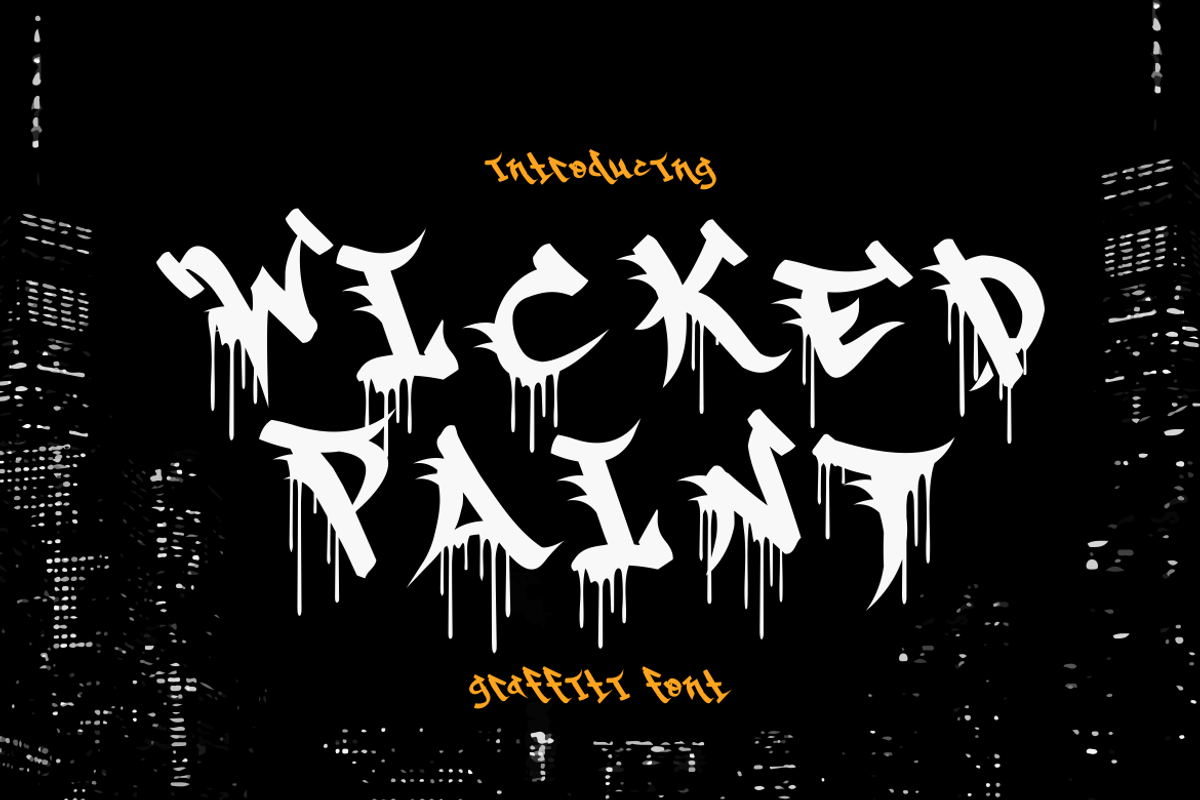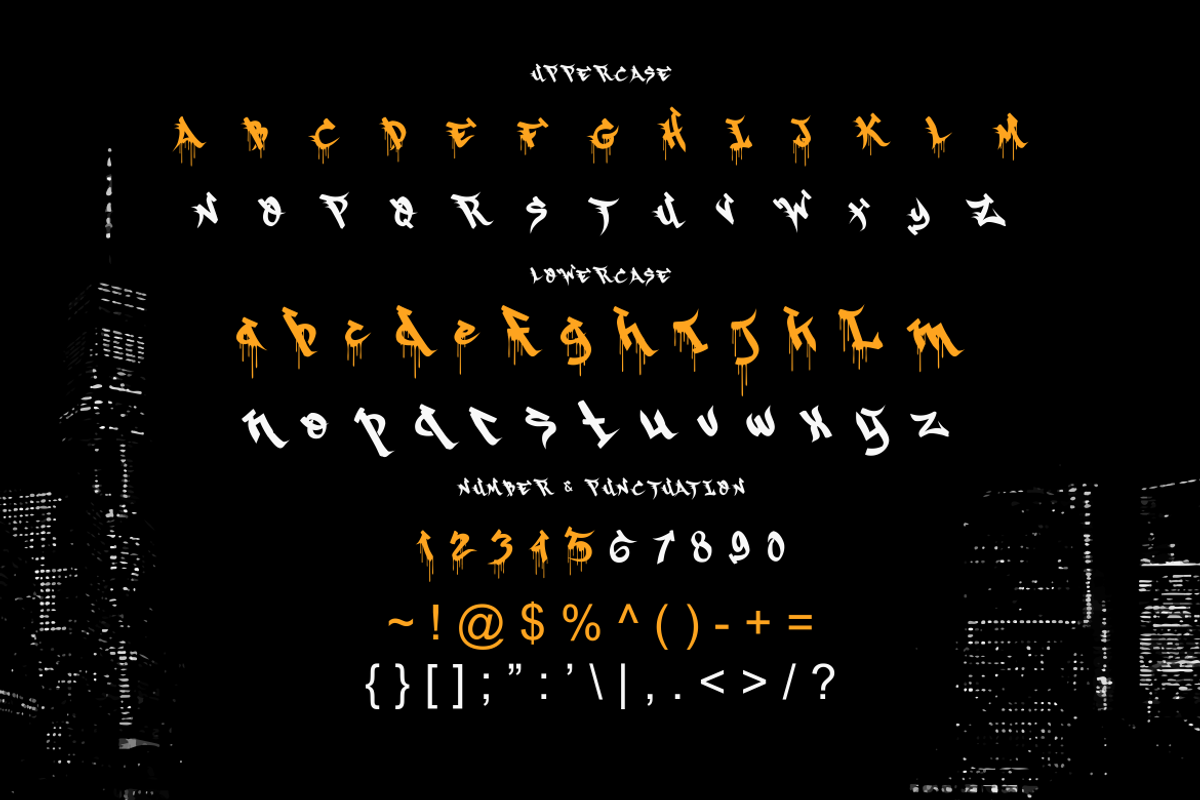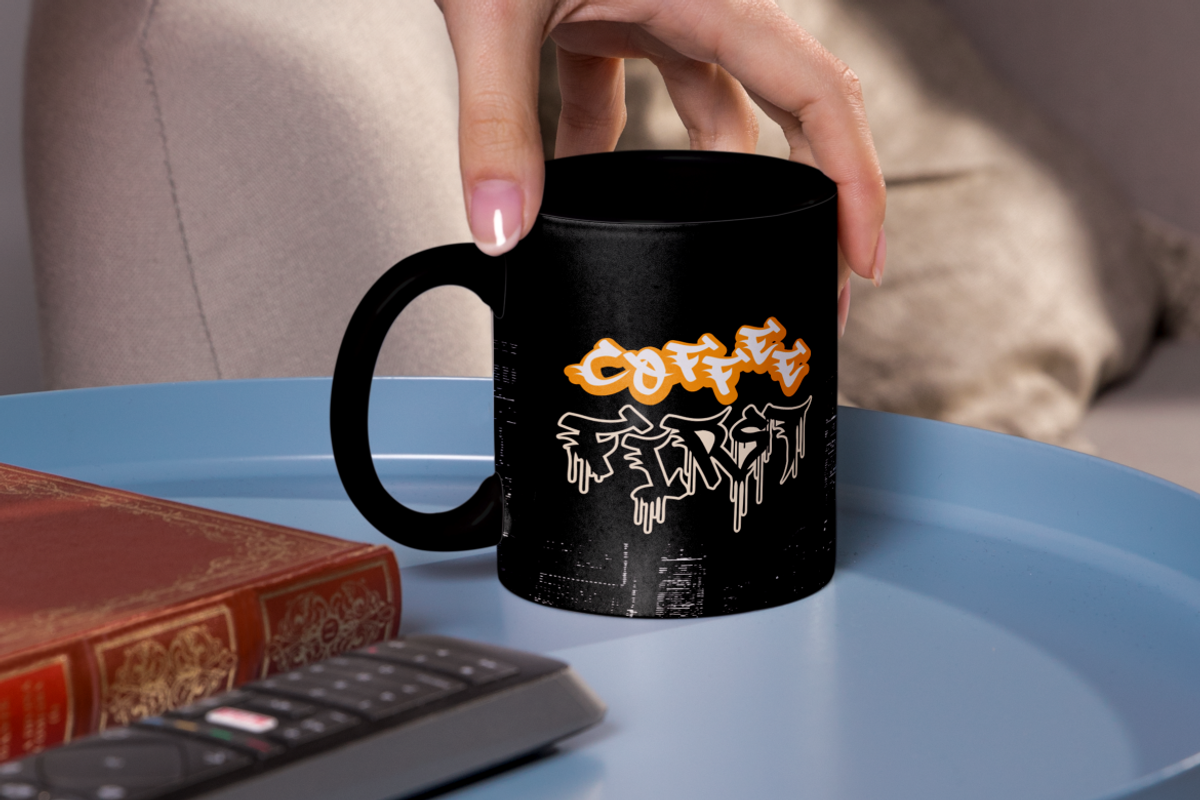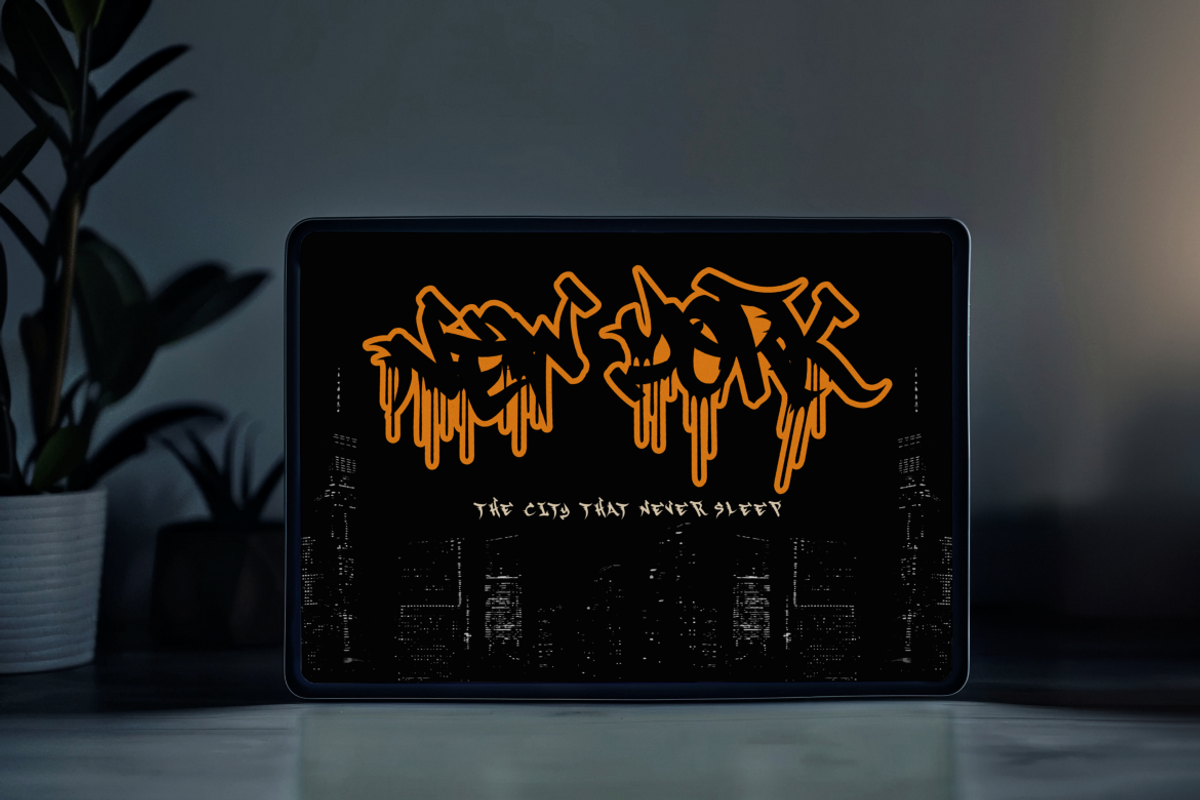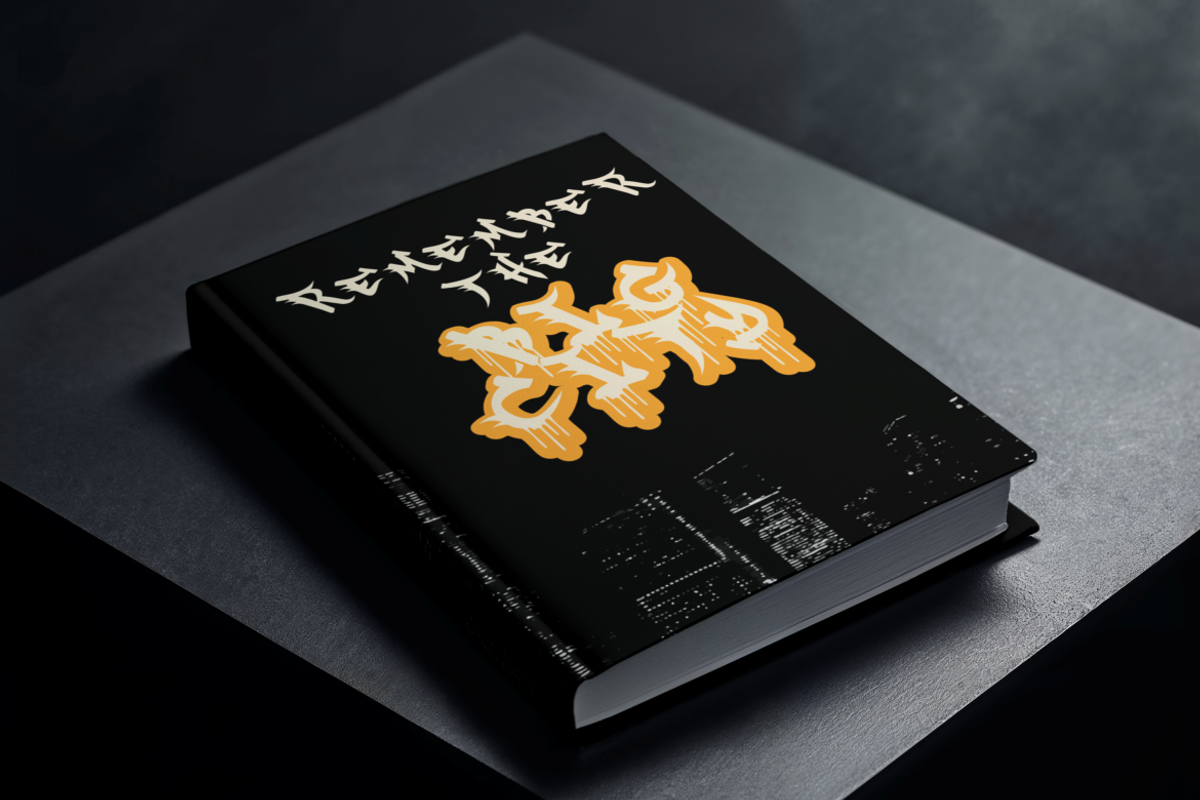
Wicked Paint Graffiti Horror Font
Wicked Paint Graffiti Horror Font is a bold and expressive typeface that captures the raw power of street art mixed with a dark, horror-inspired aesthetic. The font features thick, angular letterforms with sharp edges and dramatic drips, giving the illusion of fresh paint or ink sliding down the wall. Its uneven baseline and jagged cuts create a chaotic, rebellious mood, perfect for designs that demand attention. The strokes are heavy and textured, combining a gritty urban vibe with a sinister edge that feels alive and untamed. Wicked Paint Graffiti Horror Font transforms ordinary words into bold visual statements full of personality and attitude.
This typeface is ideal for graffiti-inspired logos, horror movie titles, Halloween posters, streetwear branding, or edgy album covers. It also works great for stickers, apparel design, packaging, and event promotions that aim to stand out with fearless creativity. The dripping details make it perfect for projects that want to reflect boldness, mystery, and underground culture. Wicked Paint Graffiti Horror Font brings together the thrill of horror design and the freedom of street art—making every letter a striking piece of visual rebellion.